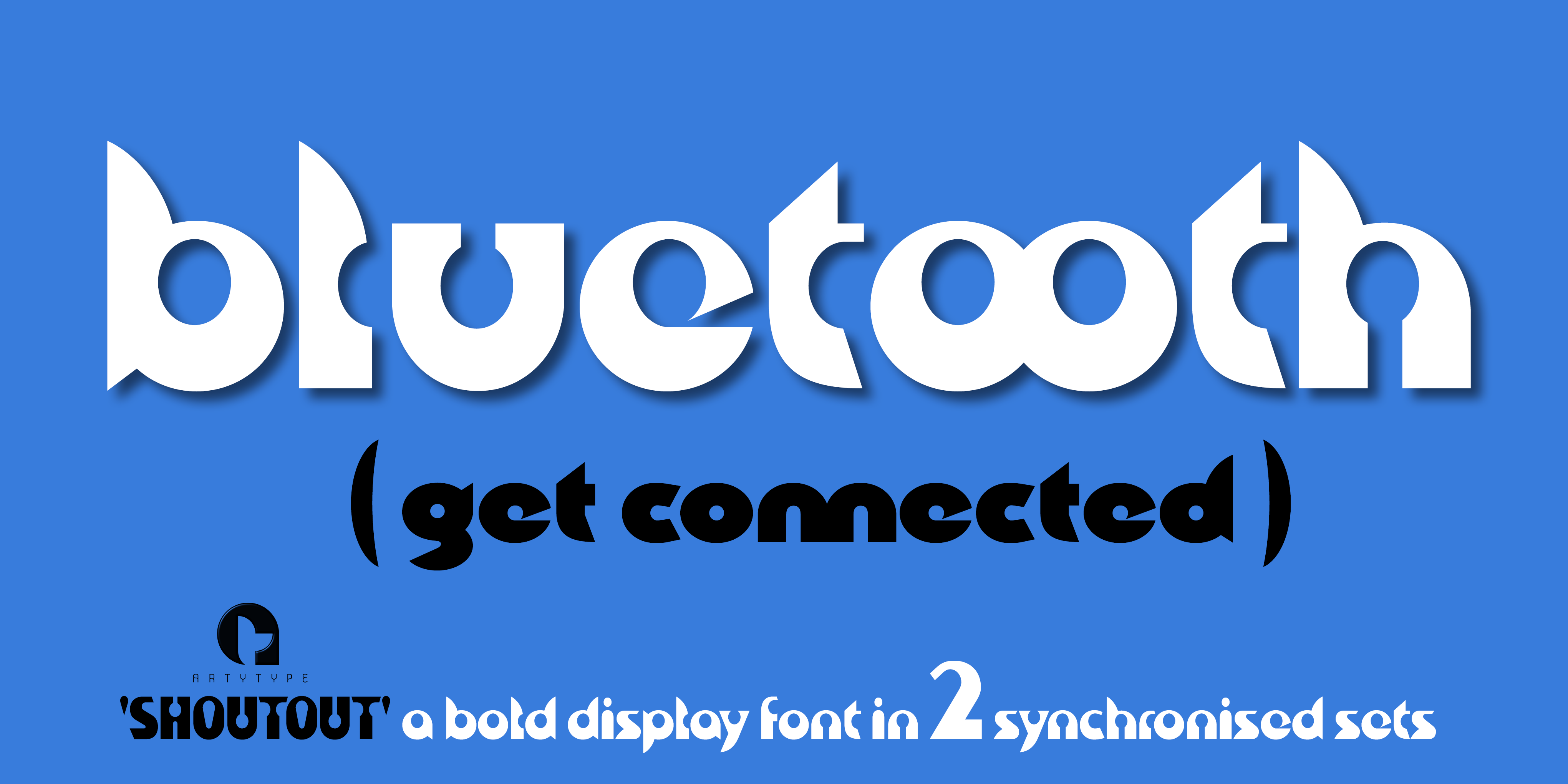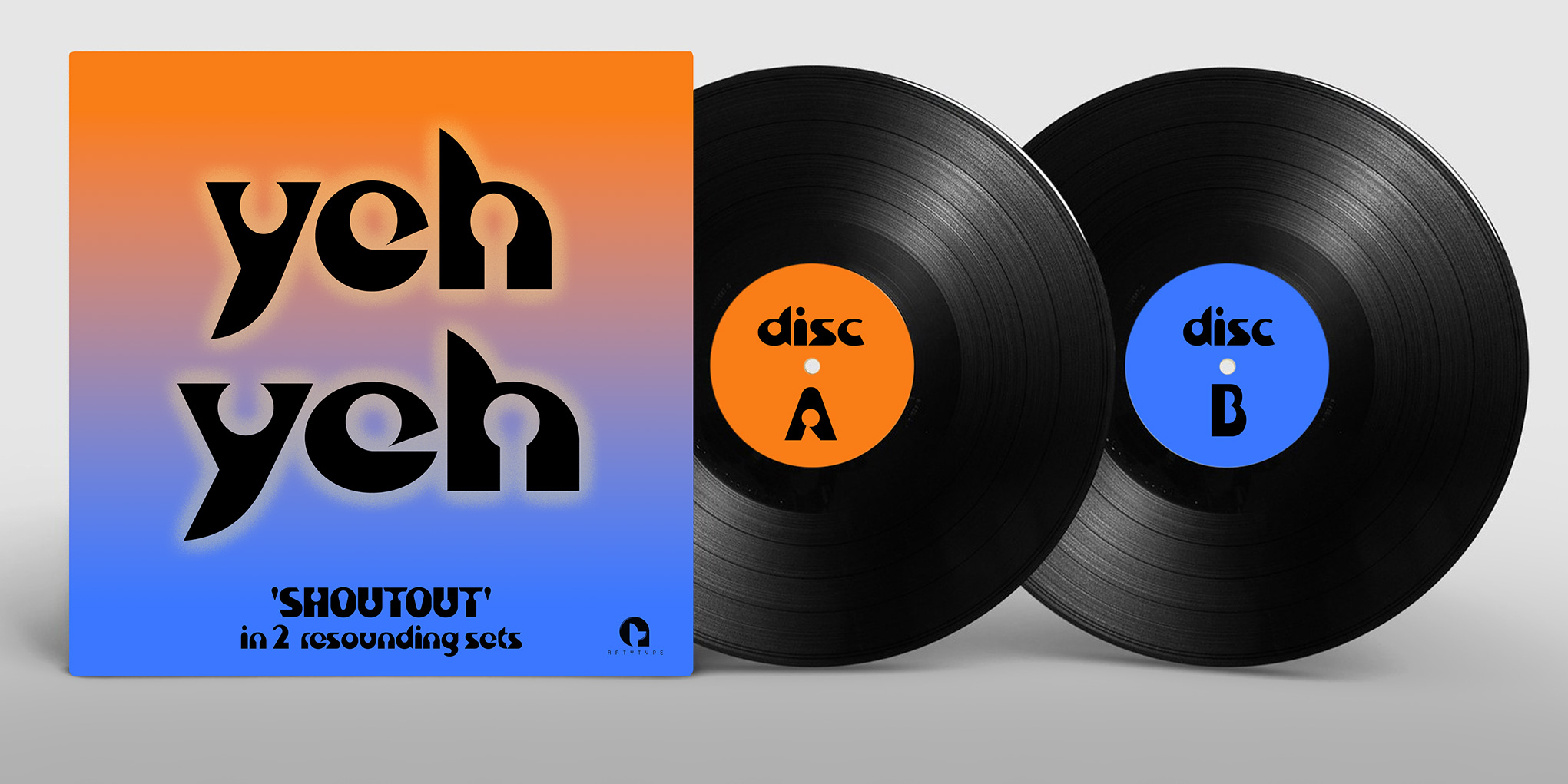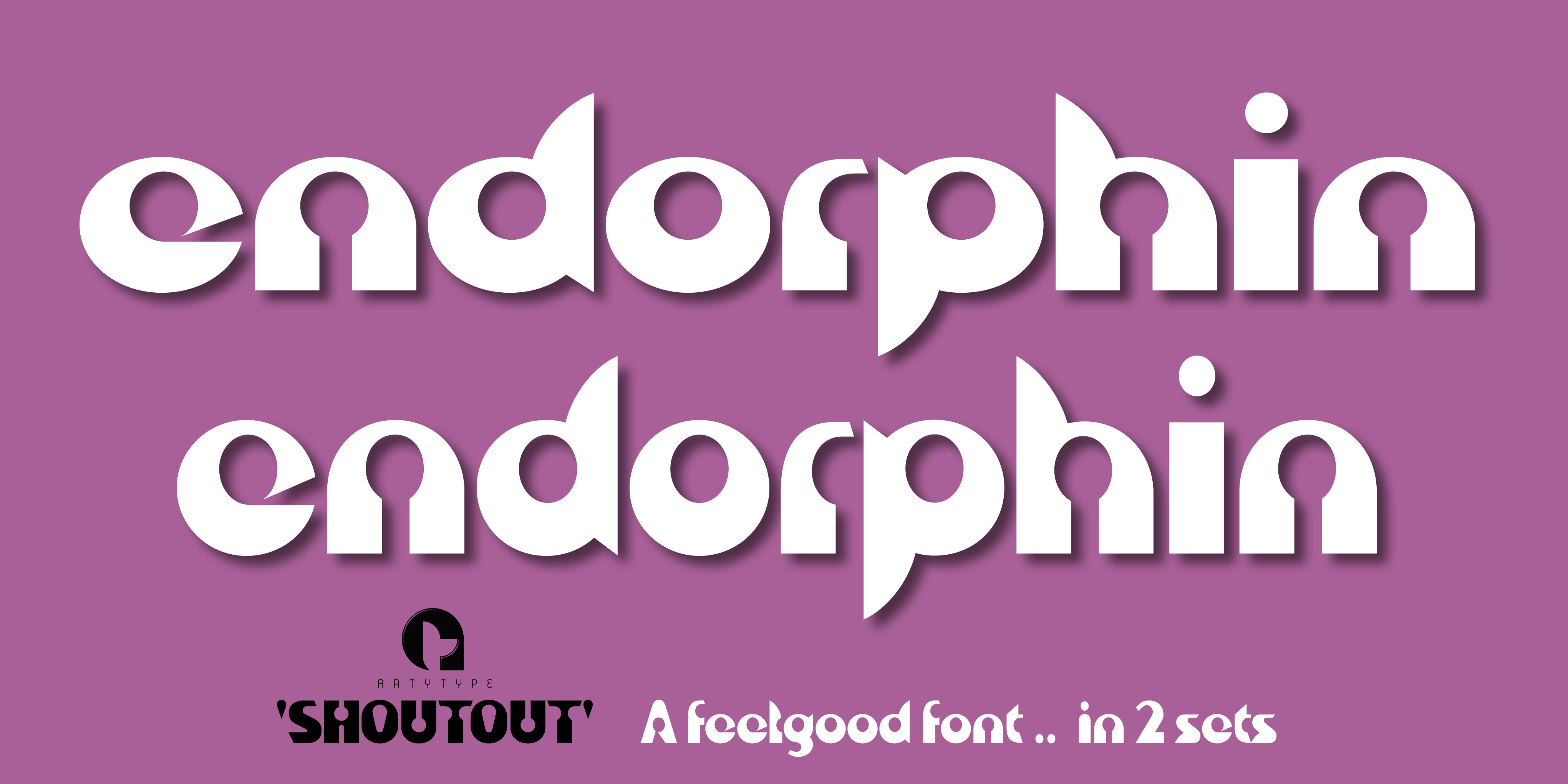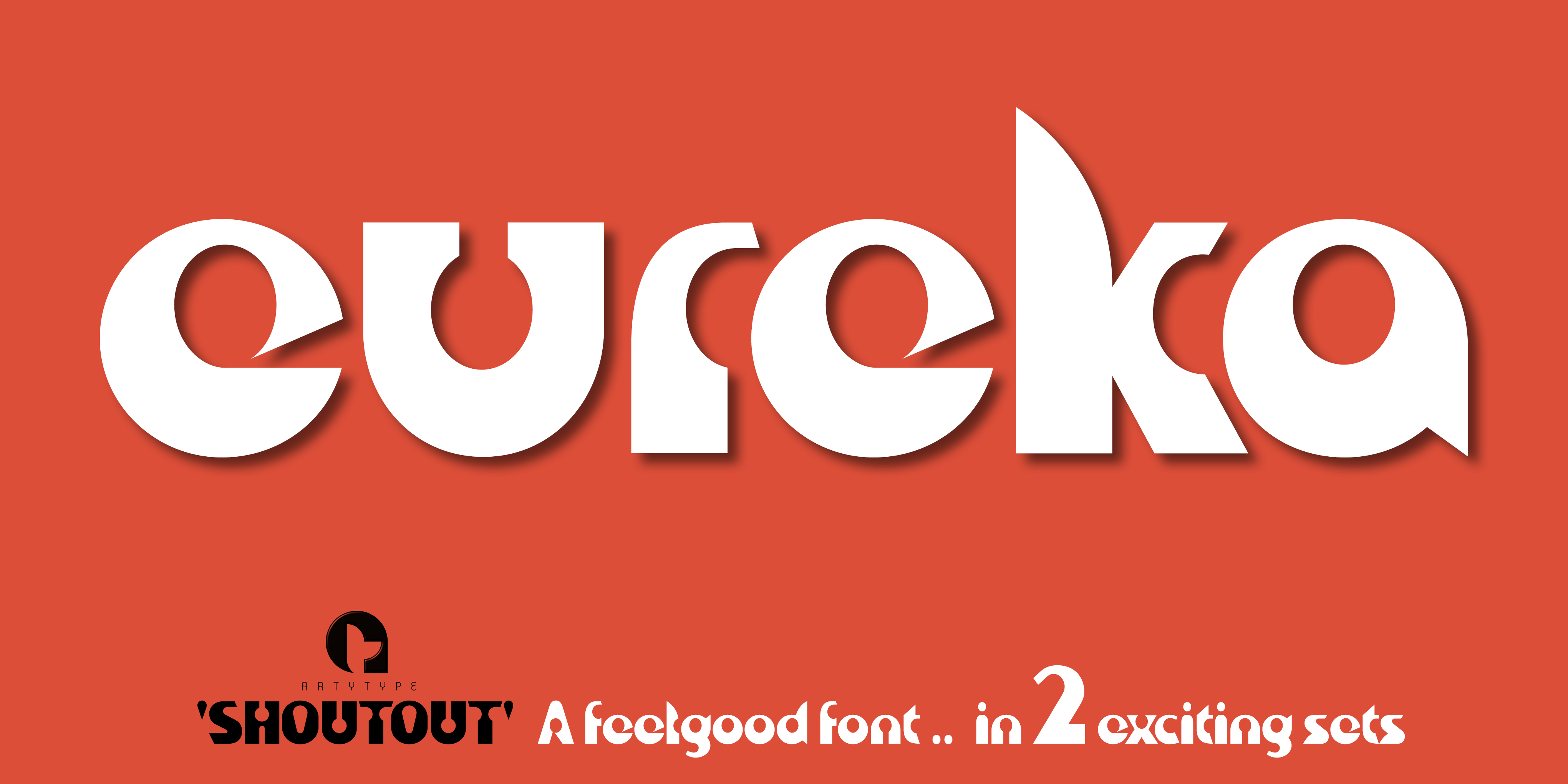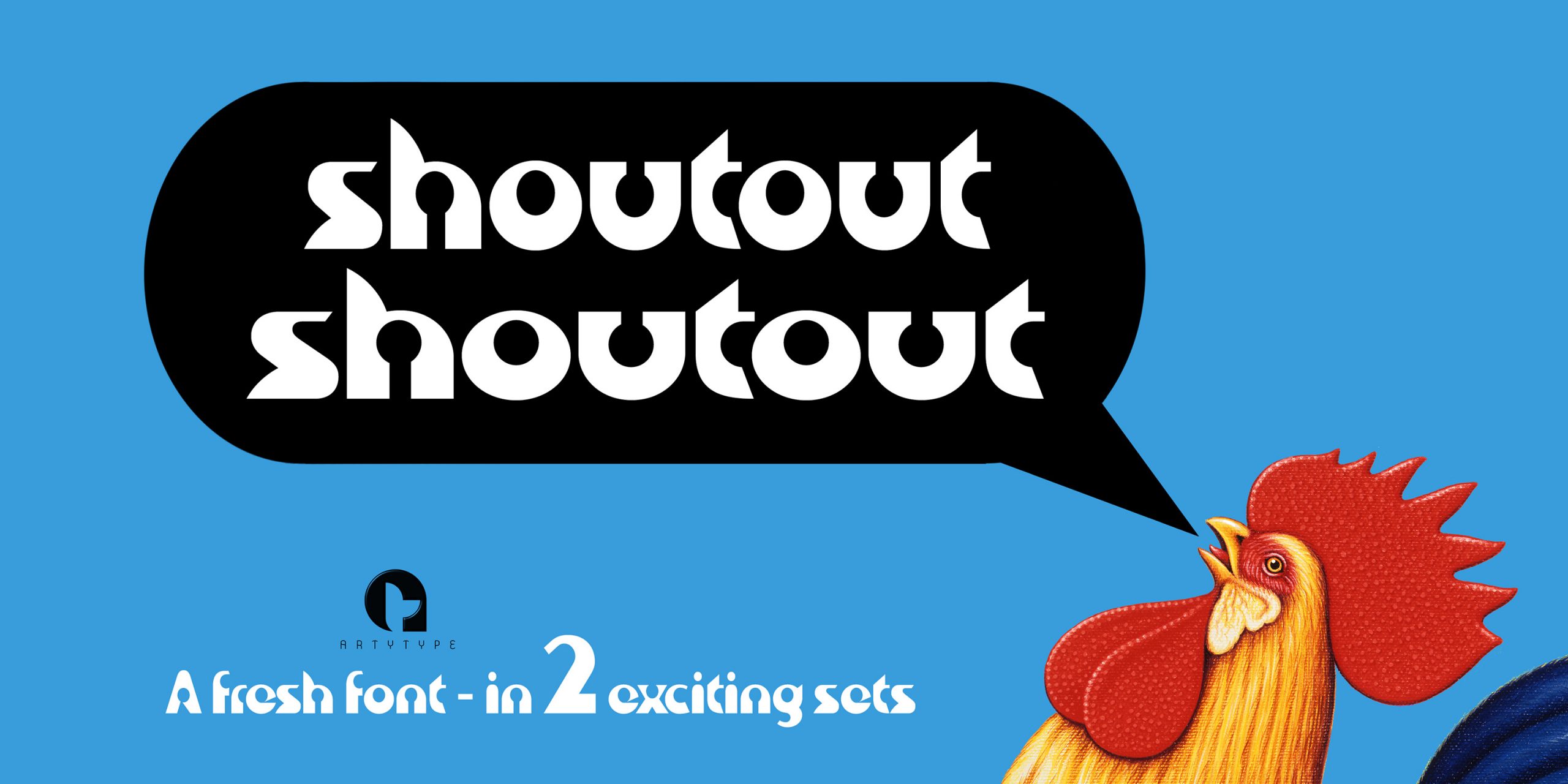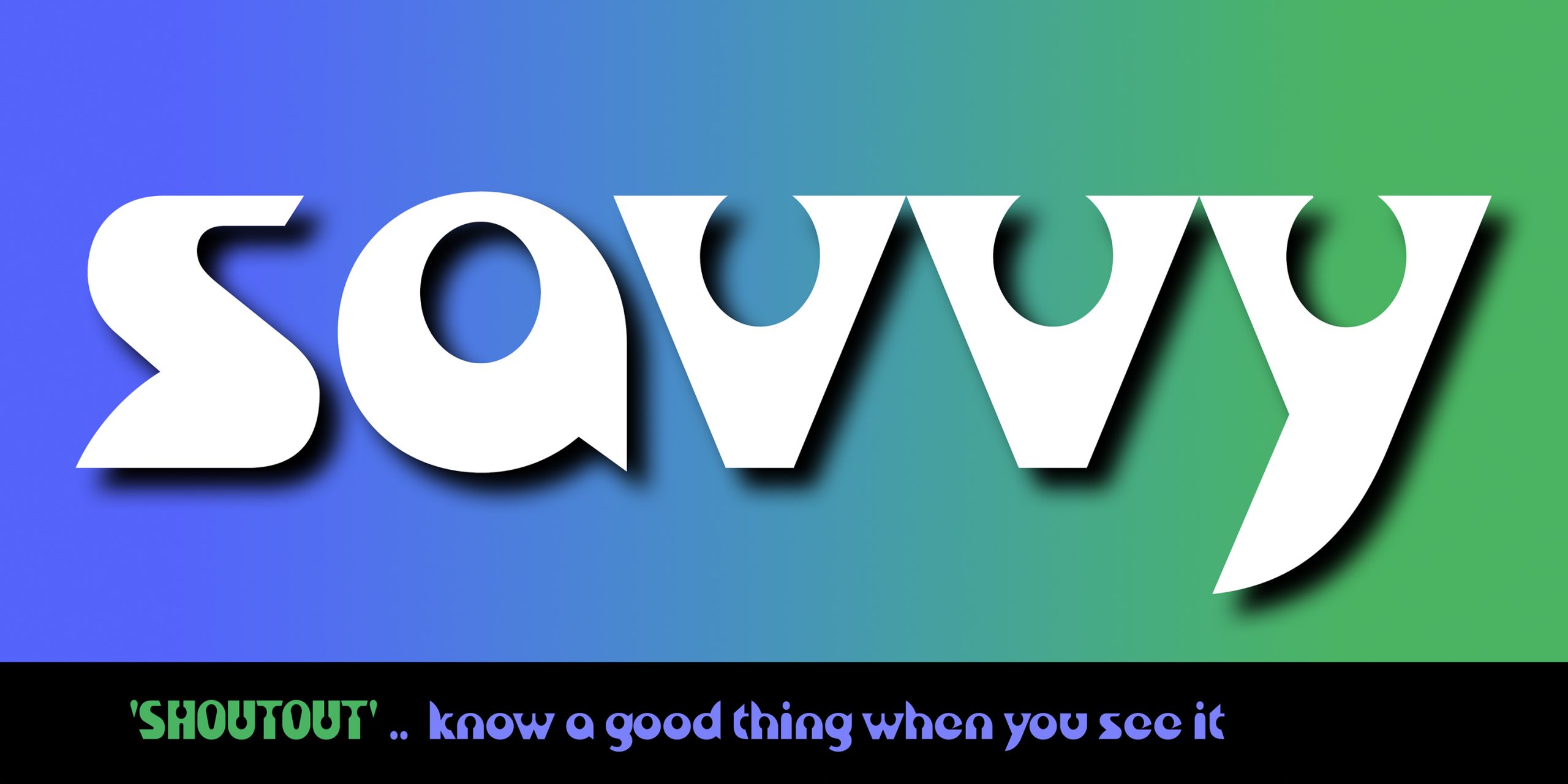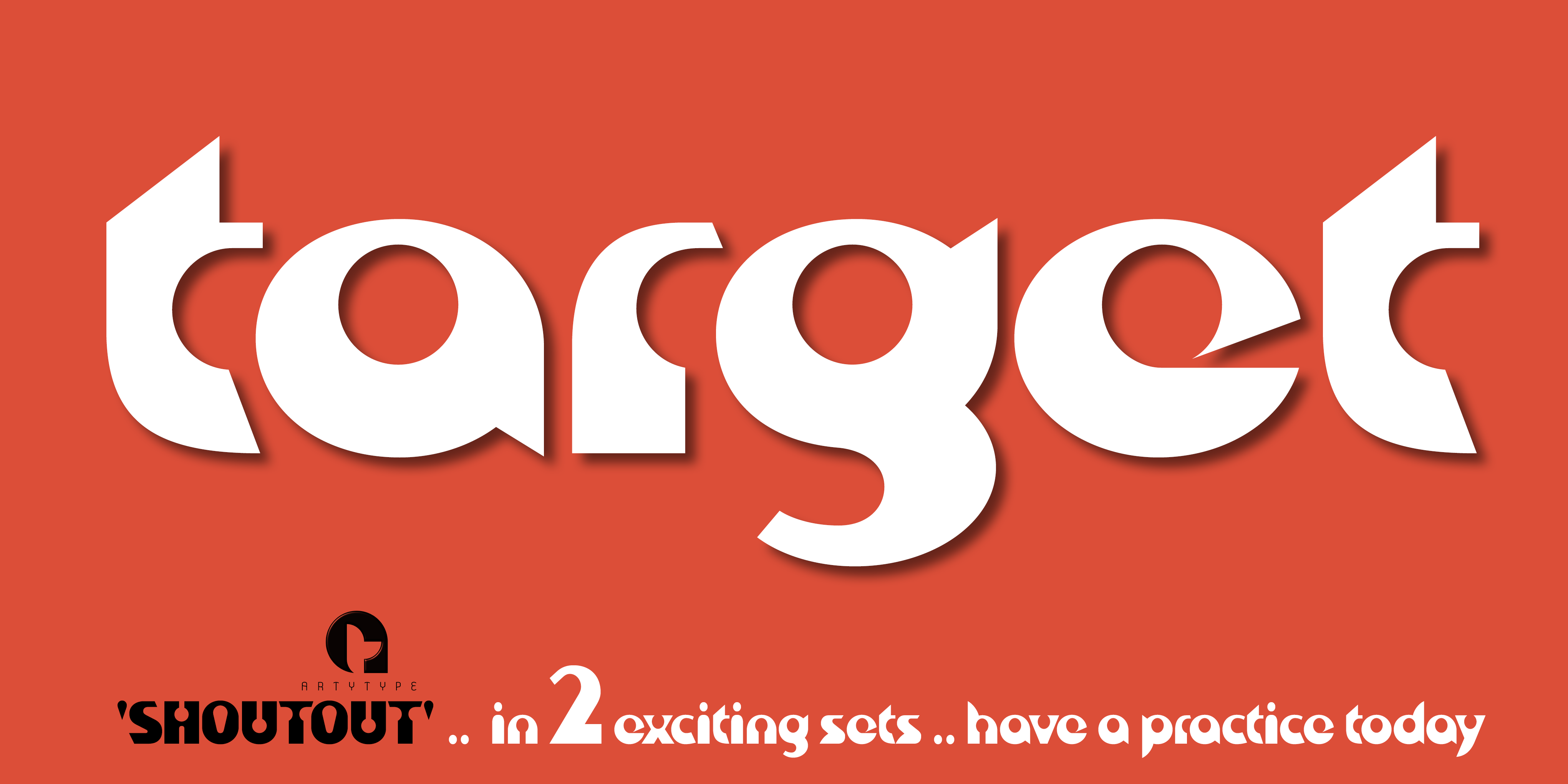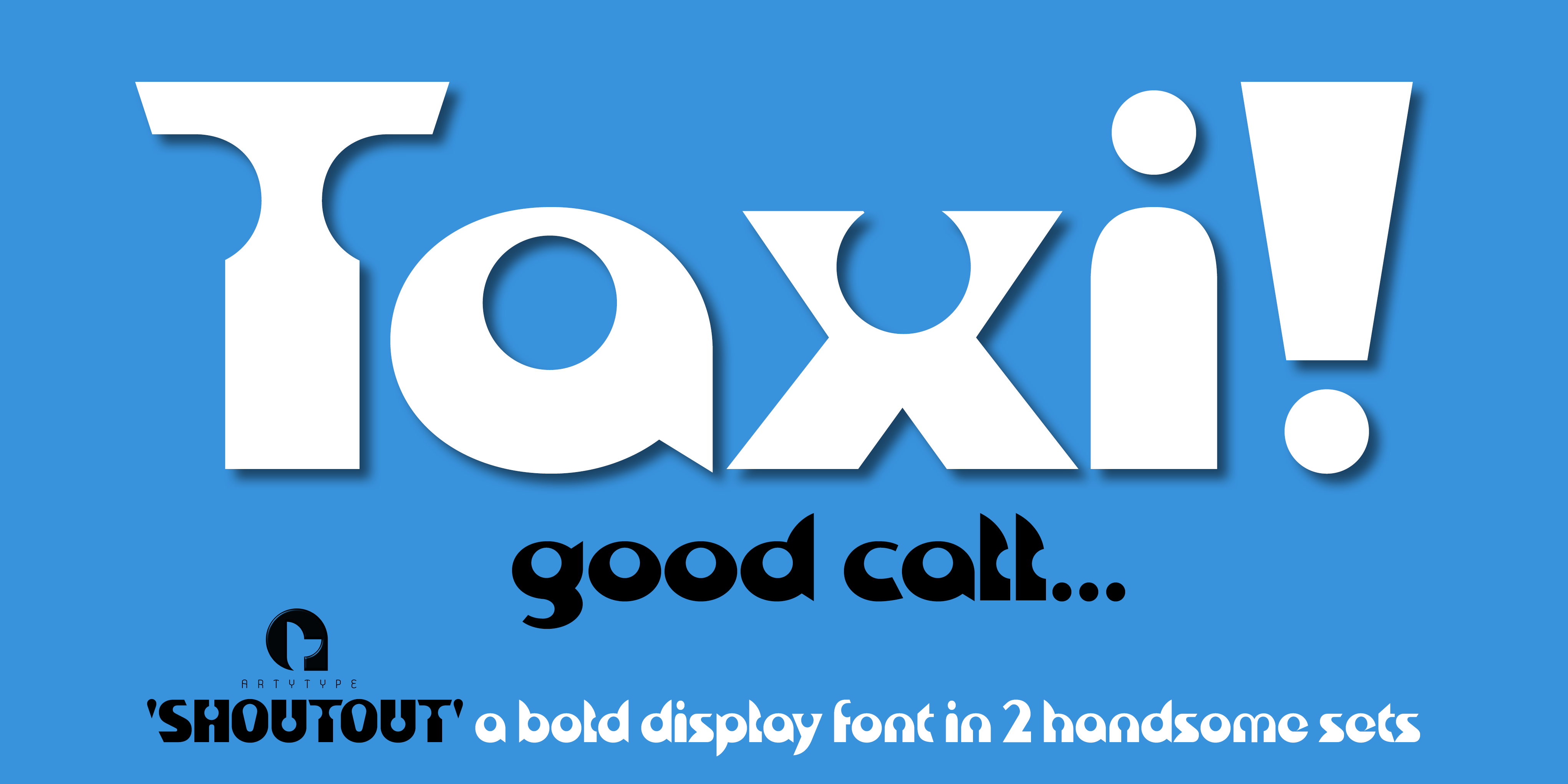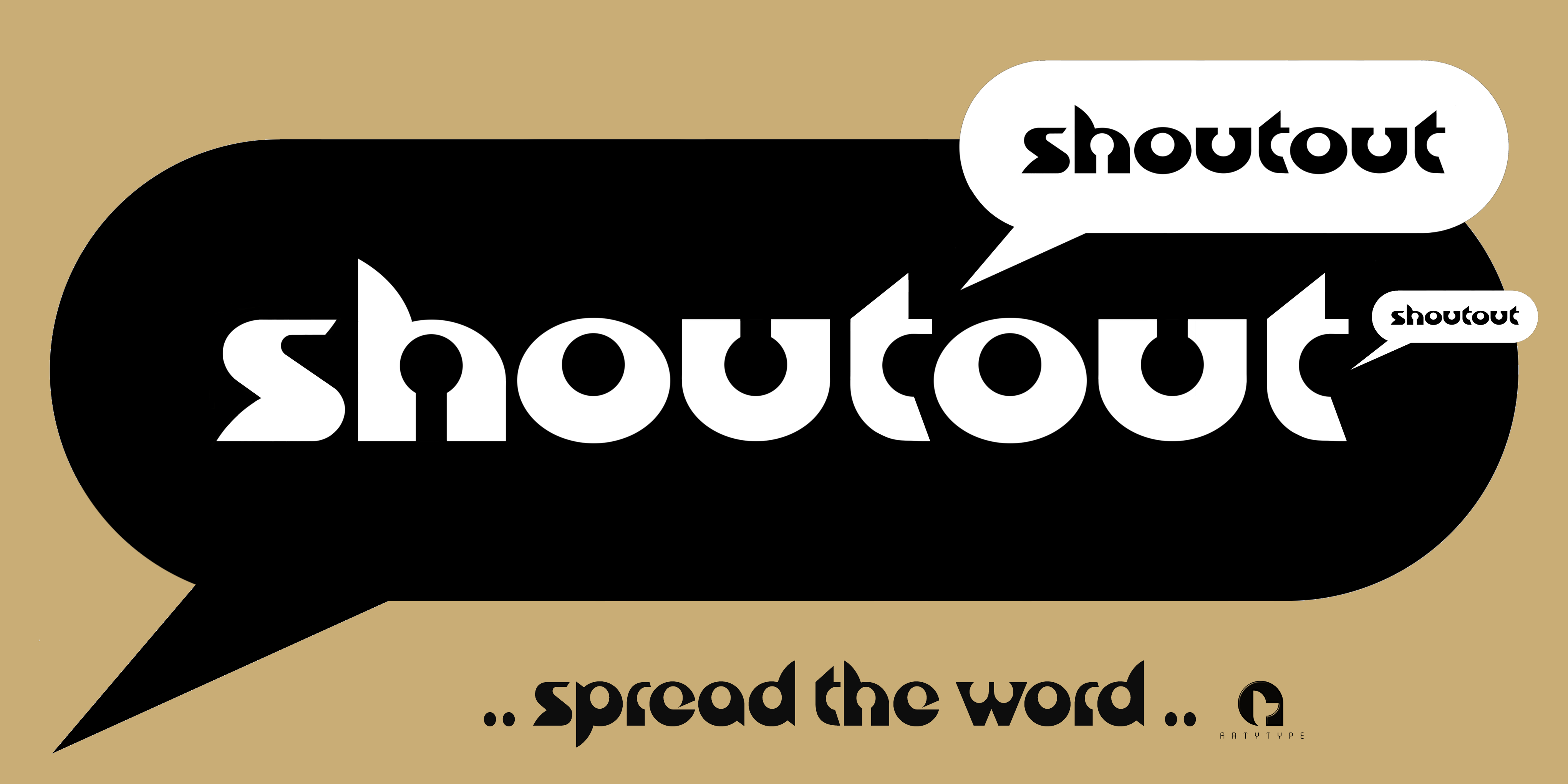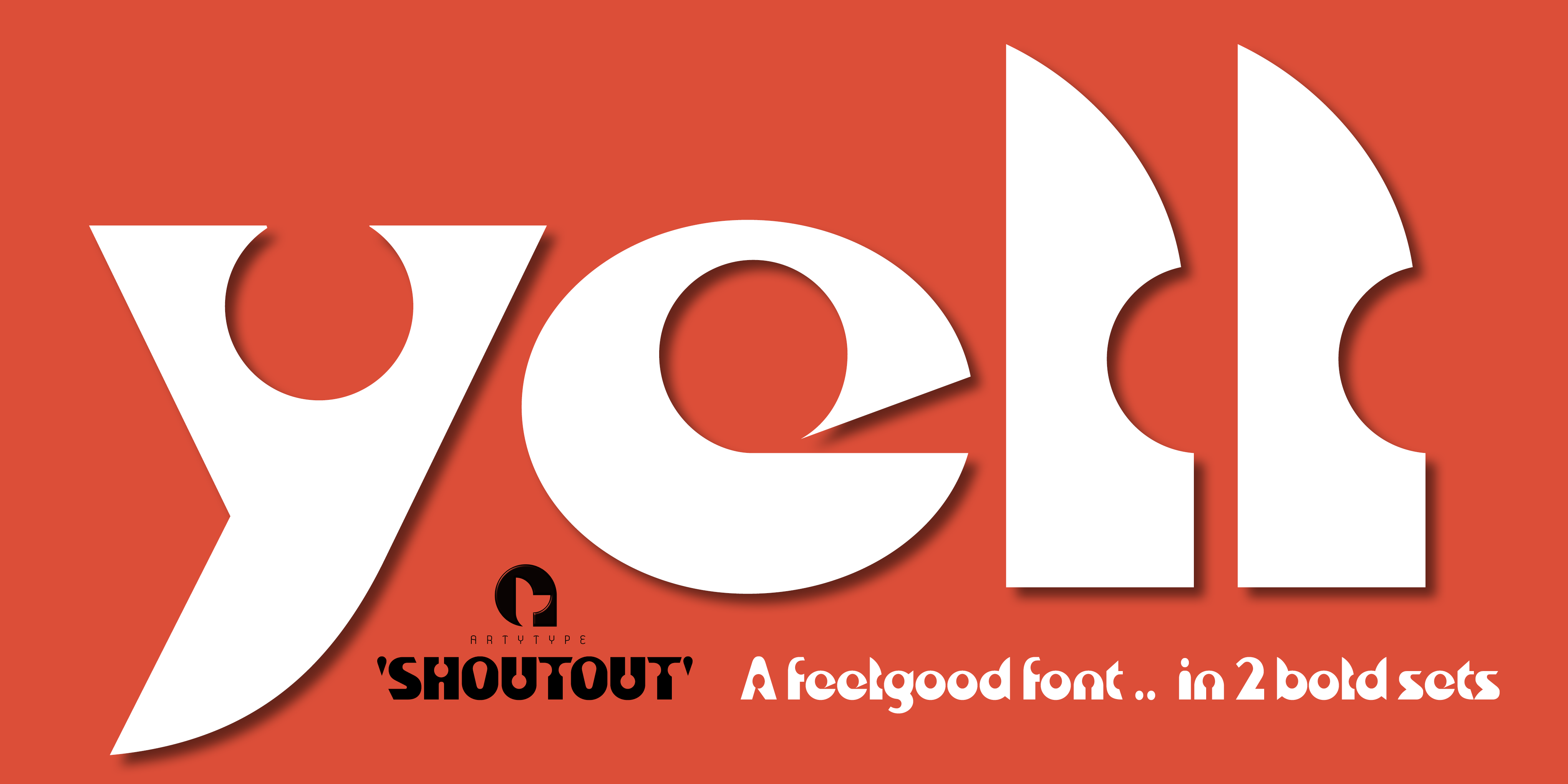
ShoutOut
Apart from the name- tag connection, it’s not immediately obvious that ‘ShoutOut’ is a suave variant of the aptly named ‘Shout’ typeface.
What’s different here though is the unexpected and strategic introduction of large circular elements, resulting in a complete character transformation. Yet, despite these extra quirky features, ShoutOut still manages to evoke a stylish, 1960s vibe in the process.
Also.. just like ‘Shout’, this typeface has a more Condensed variant, affording further versatility to your creative design layouts, whether used separately, or in conjunction with its heavier counterpart.
ShoutOut manages to evoke a stylish, 1960s vibe with the strategic introduction of large circular elements.